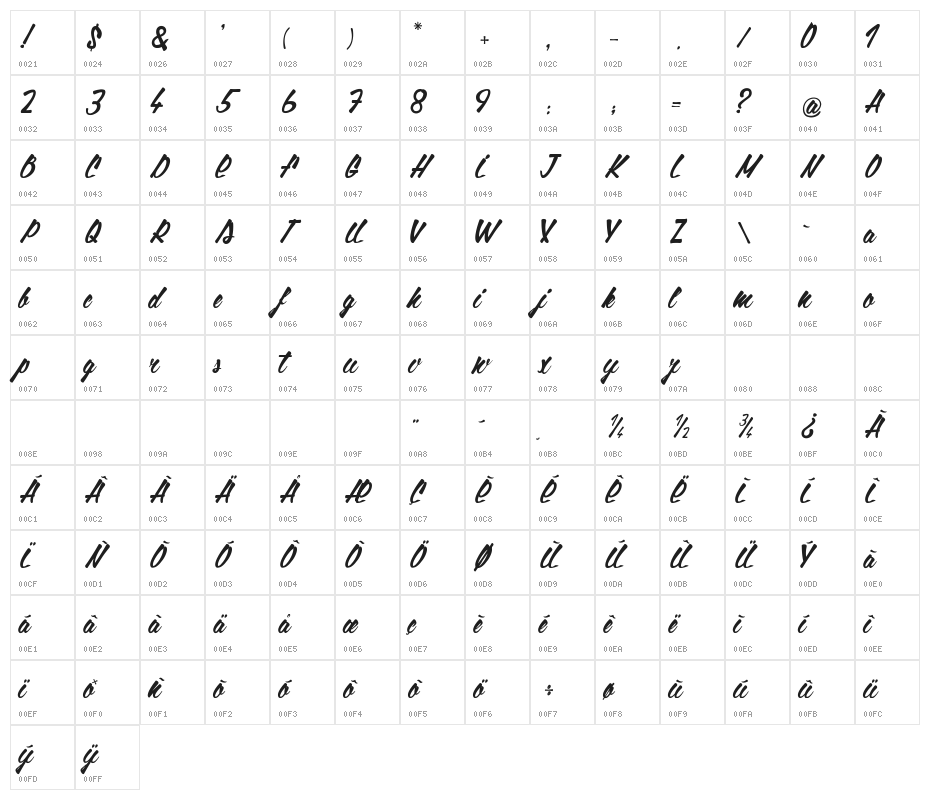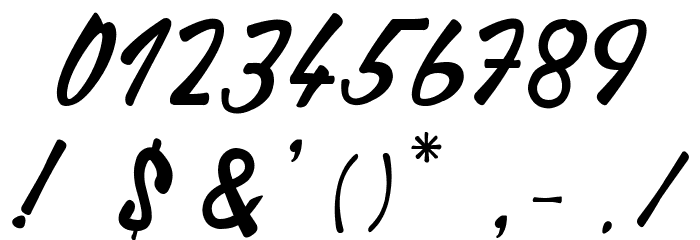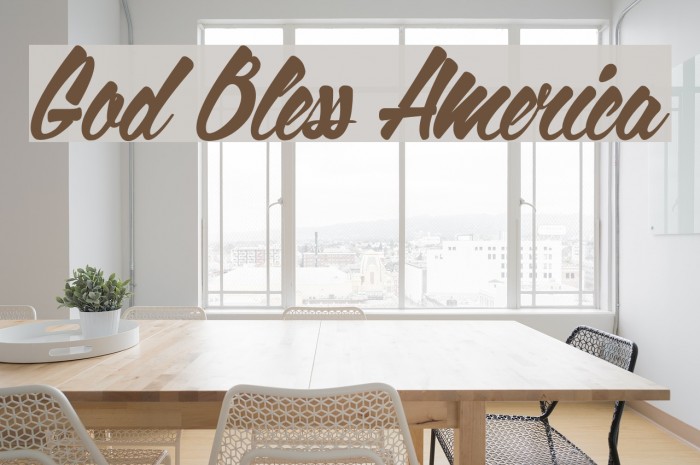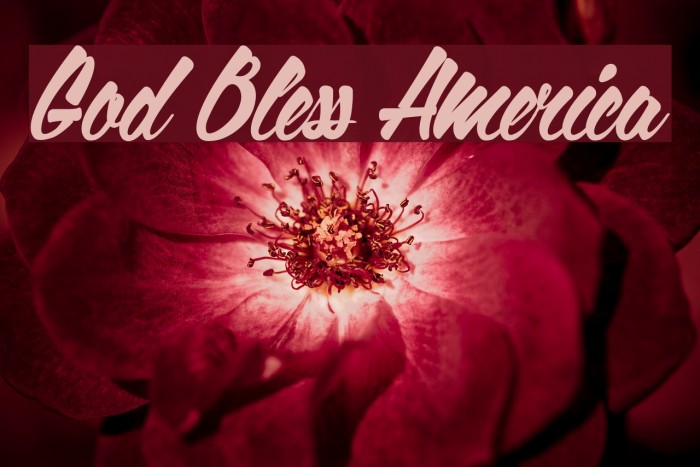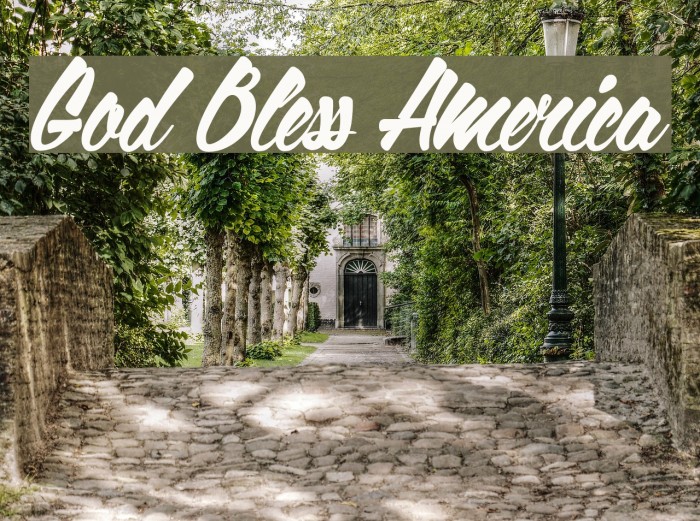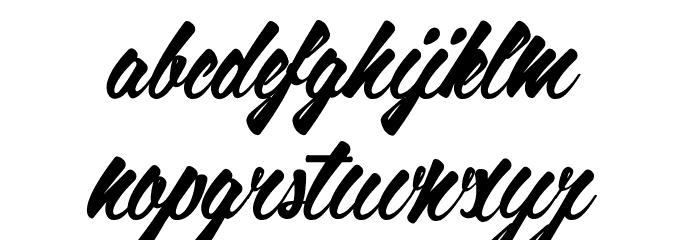
God Bless America Font
God Bless America Description
This font features a bold, cursive style with a strong, flowing script that mimics the fluidity of handwriting. The uppercase letters are particularly striking, with exaggerated loops and curves that give them a dynamic and energetic appearance. The lowercase letters maintain a consistent style, with smooth connections between characters that enhance readability. Numbers and special characters are designed to match the overall aesthetic, providing a cohesive look across all elements. The font's boldness and slant suggest a sense of movement and urgency, making it suitable for attention-grabbing designs.